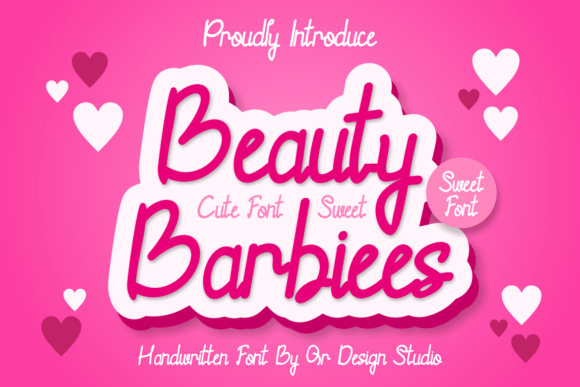
Welcome to the world of Beauty Barbiees Font, a playful and enchanting script font that will captivate your senses and bring your creative visions to life.
Crafted with meticulous care by qrdesignstd, Beauty Barbiees is more than just a font; it's an experience. Its bold, whimsical strokes dance across the page, evoking a sense of joy and wonder. Perfect for any branding project, Beauty Barbiees adds a touch of magic to logos, fashion brands, photography, quotes, notetaking, and more.
Picture this: your logo, adorned with Beauty Barbiees Font, standing out amidst a sea of ordinary designs. The unique ligatures and swashes add a touch of elegance and personality, making your brand memorable and instantly recognizable.
Imagine your fashion brand, with Beauty Barbiees Font gracing your designs. The font's playful nature complements the vibrancy of your creations, making them irresistible to fashion-forward individuals.
Capture life's precious moments with Beauty Barbiees Font. Use it to add a personal touch to your photographs, turning them into cherished memories that you can revisit time and again.
Express your thoughts and feelings in a captivating way with Beauty Barbiees Font. Its whimsical style adds a touch of charm to your notes, making them more enjoyable to read and revisit.
Discover the endless possibilities of Beauty Barbiees Font. Let its playful spirit inspire you to create captivating designs that leave a lasting impression.